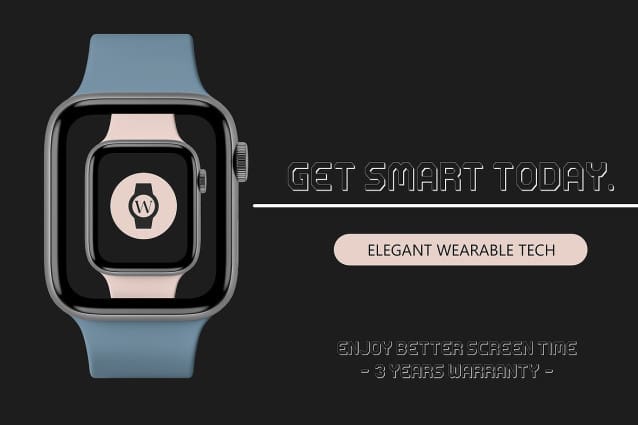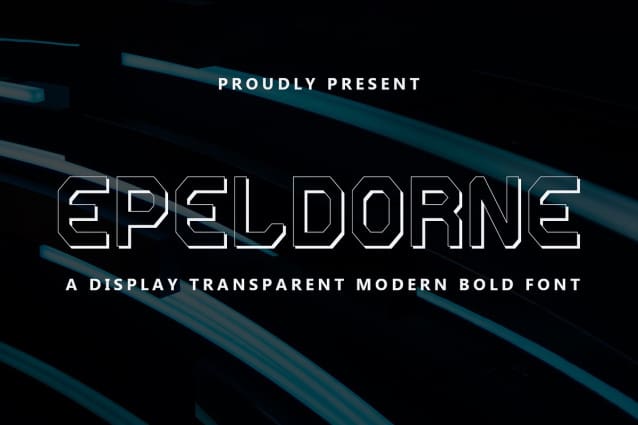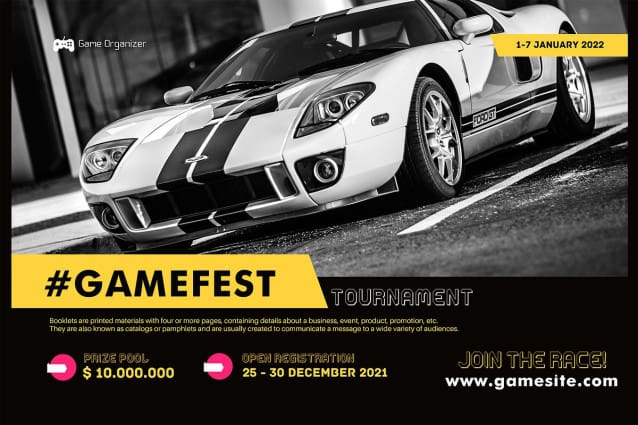
Epeldorne Display Font
Epeldorne Display Font is a transparent futuristic bold font, a font inspired by the visual of technology that can apply to logo, sci-fi movies and the present gadgets. Designed with minimalist style and unique letterforms, a perfect choice to use on headlines, logo, labels, posters, packaging, book cover, movies, presentations, games, etc. Epeldorne Display complete with some modern touch that give your design looks more transparent, futuristic and dynamic.